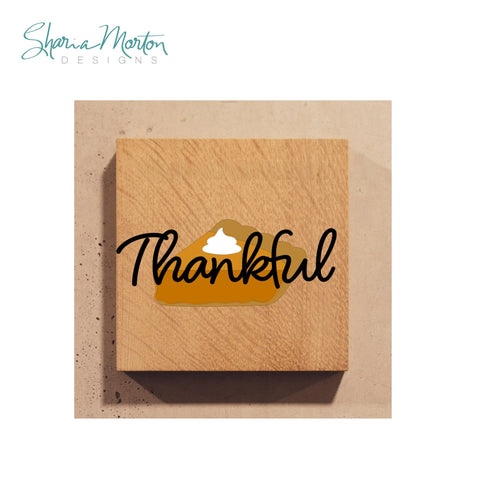
Thankful Pie | Pumpkin Pie Thanksgiving Design for Shirts, Mugs and Fall Decor
Celebrate the warmth of the season with this adorable “Thankful” pie design featuring a slice of pumpkin pie topped with a whipped cream dollop and elegant lettering. Perfect for Thanksgiving shirts, mugs, kitchen towels, signs, tote bags, and holiday decor. Includes SVG, PNG, and DXF formats so you can easily cut or print your project. This easy to cut and assemble file is suitable for use with your Silhouette, Cricut or any other popular cutting machine. Use it for fall gatherings, hostess gifts, classroom celebrations, or festive home decor. This digital download makes it simple to create cozy, autumn-inspired crafts you can enjoy year after year. Add it to your cart or favorite this listing so you can find it again later.